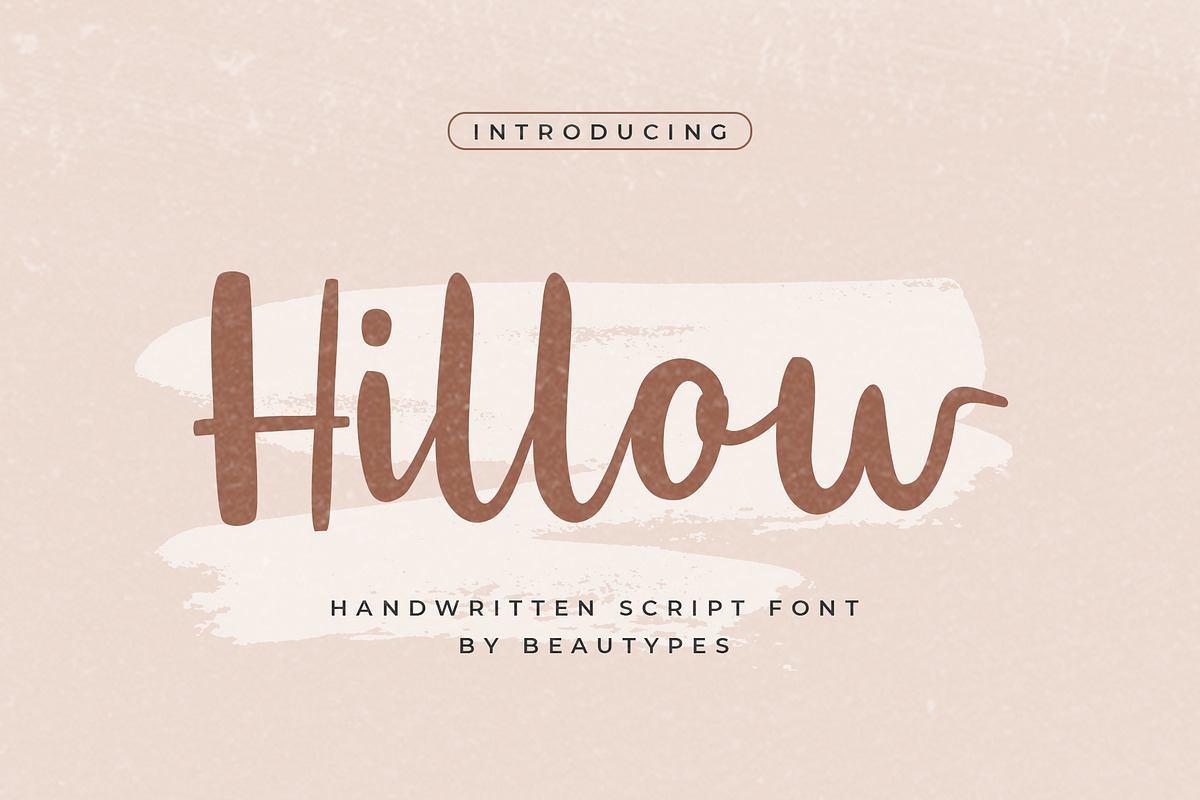
You must purchase this font for commercial use. However, you can download Hillow Script | A Handwritten Font Free Download for testing purposes. Hillow Script is a beautiful and elegant handwritten font designed to add a personal, artistic touch to your designs. With its flowing strokes and natural handwriting style, this font is perfect for wedding invitations, logos, quotes, branding, social media graphics, and other creative projects that need a refined, hand-crafted feel.
The smooth curves and stylish character of Hillow Script make it ideal for designs that require a modern, yet personal touch. Whether you're working on a romantic design, a chic brand, or creating personalized stationery, Hillow Script brings sophistication and warmth to your typography.